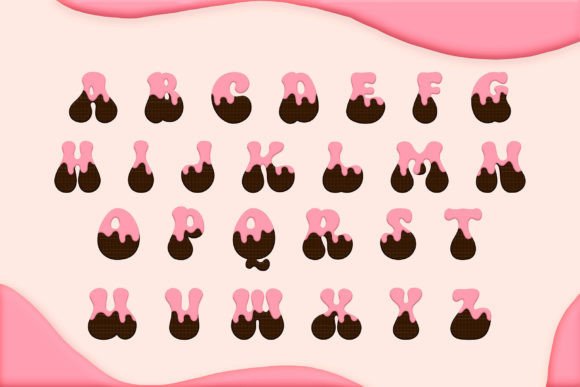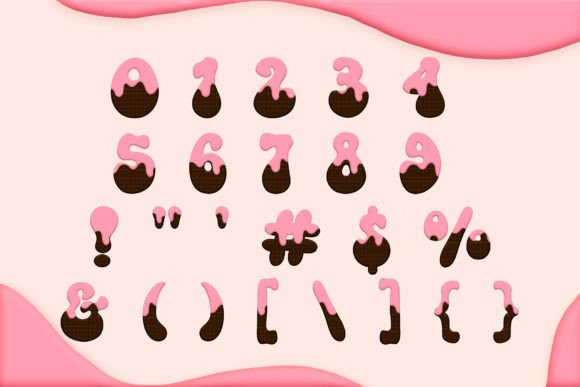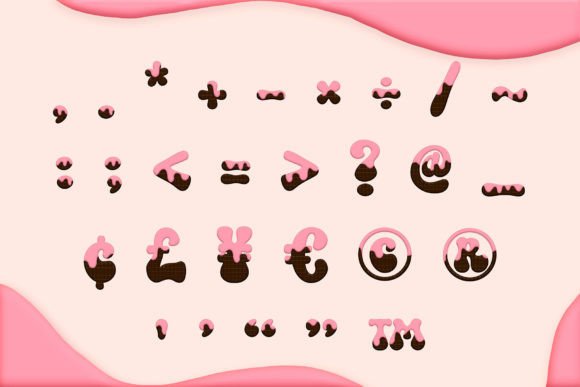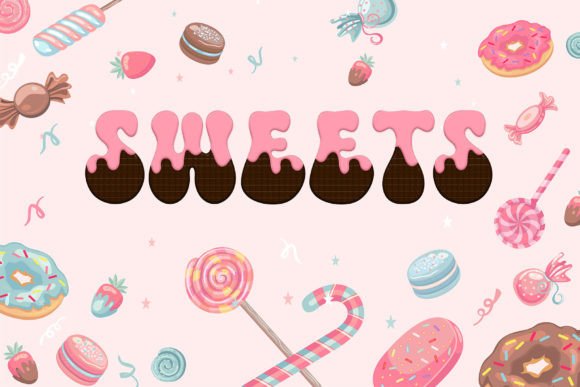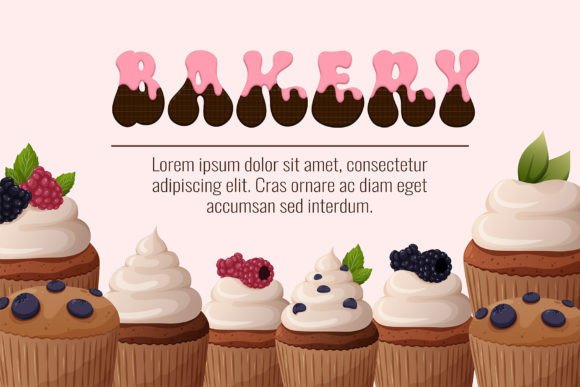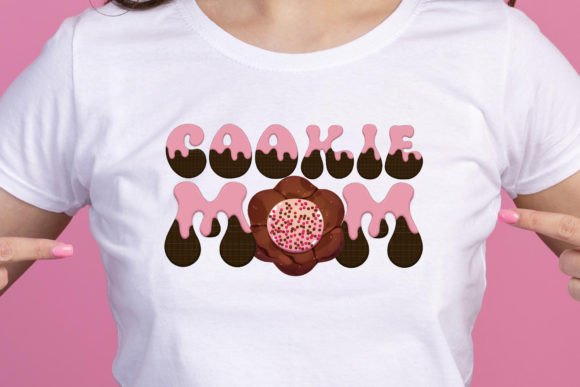
Introduction to Pinky Cookie Font
Pinky Cookie font is a lovely color font designed to remind you of a cookie strawberry cream snack.
It is brilliant, fun, and cute, suitable for use in any topic that makes it stand out Fall in love with its authentic feel and use it to create gorgeous invitations, beautiful stationary art, eye-catching social media posts, and cute greeting cards.
Key Features of Pinky Cookie Font